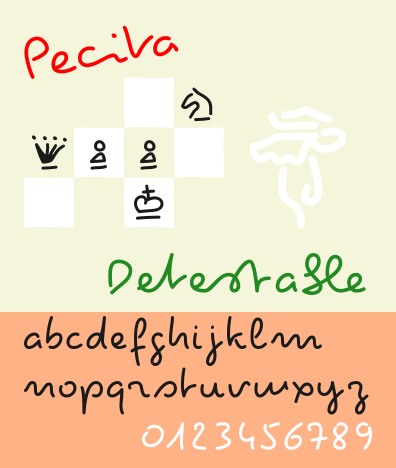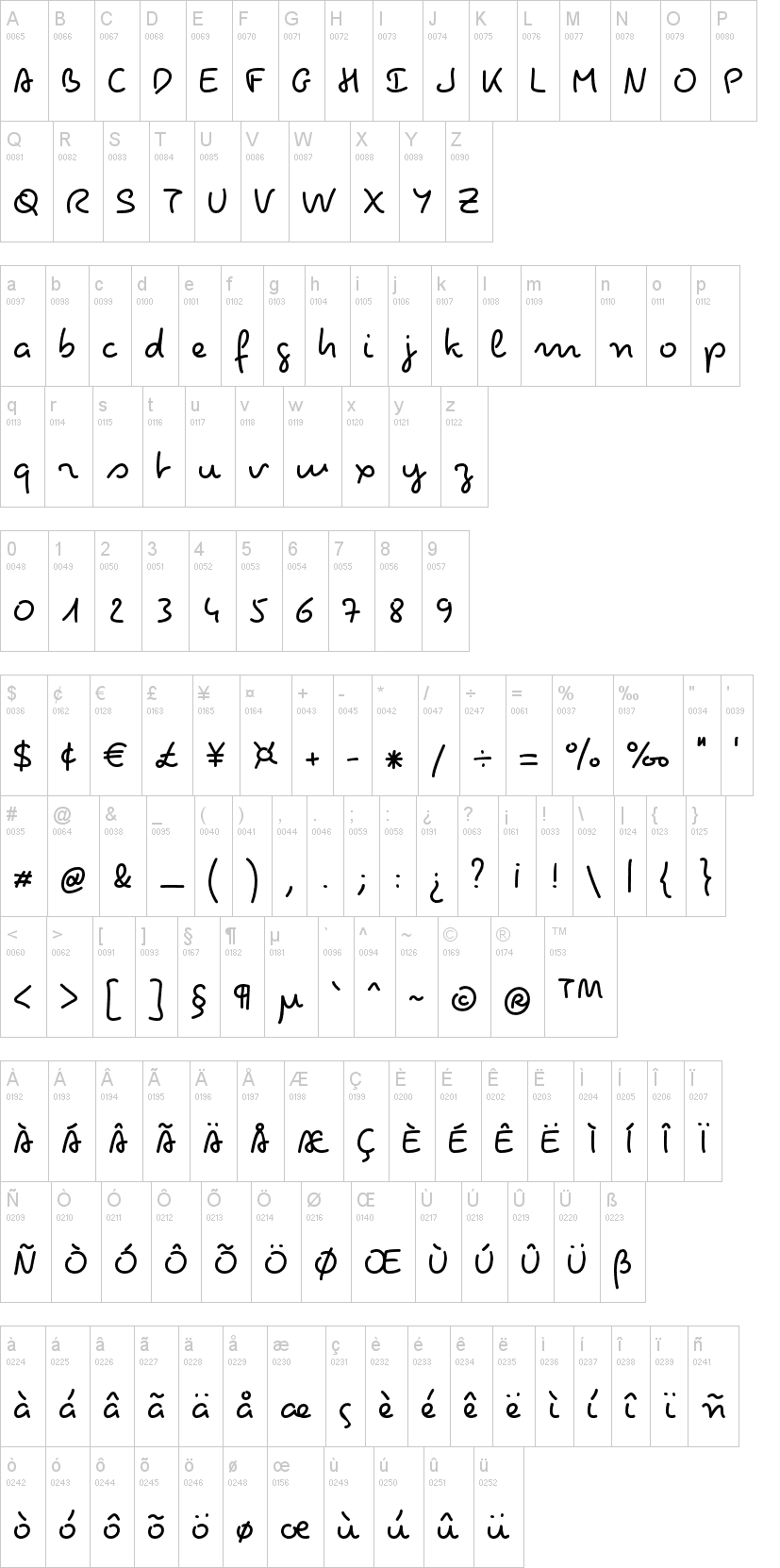
OpenType hand-written font whose letters are connected
Pecita is a hand-written font that give a natural rendition.
It includes all of the full Language support for Afrikaans, Archaic Greek Letters, Baltic, Basic Cyrillic, Basic Greek, Basic Latin, Catalan, Central European, Chess Symbols, Dutch, Euro, Hebbar Tamil, Igbo Onwu, IPA, Latin Ligatures, Mathematical Operators, Pan African Latin, Pinyin, Polytonic Greek, Romanian, Turkish, Vietnamese, Western European.
It implements the OpenType features Localized form substitution, Superscript , Subscript, Small capitals, Standard ligatures, Glyph decomposition and Contextual alternates.